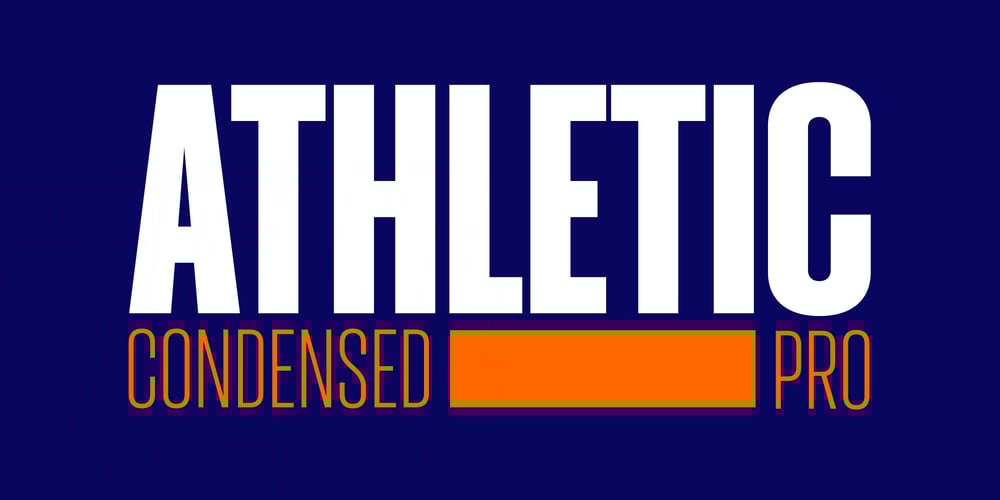
Athletic Pro
Athletic Pro font
Athletic Pro Font Family was designed by Marin Damian and published by Mandarin. Athletic Pro contains 18 styles and family package options. Athletic Pro is an updated and revised version of Athletic Condensed. Added weight styles and a brand new designed Cyrillic alphabet.Practical and timeless, this display font does an excellent job on laying headlines and bold messages. With the variable font file you will have further personalisation and broader range of styles, it also contains the standard weights and styles.